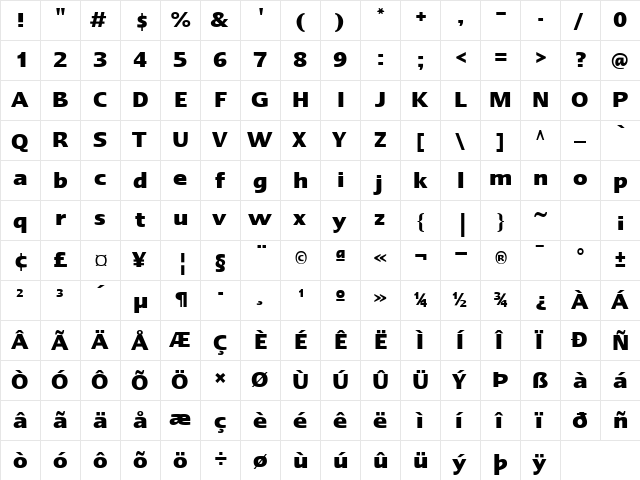
LTErgo Medium Bold Font Preview
LTErgo Medium Bold
Design Context for LTErgo Medium Typeface
LTErgo Medium takes a measured approach to typography — its balanced proportions and neutral character make it a reliable workhorse for both digital and print work. The heavy weight commands attention and anchors typographic hierarchies.